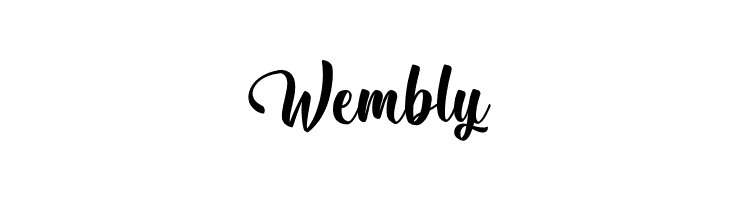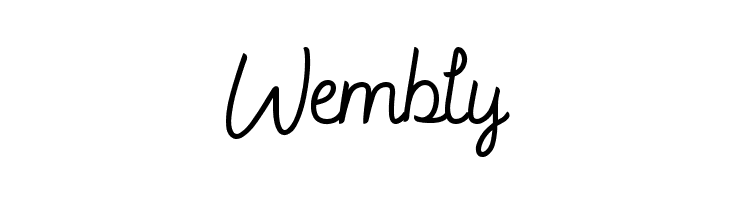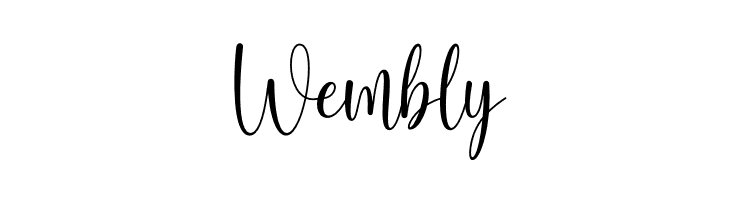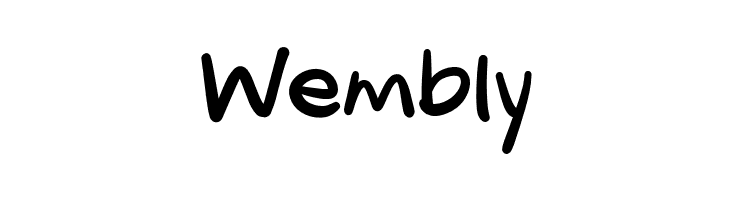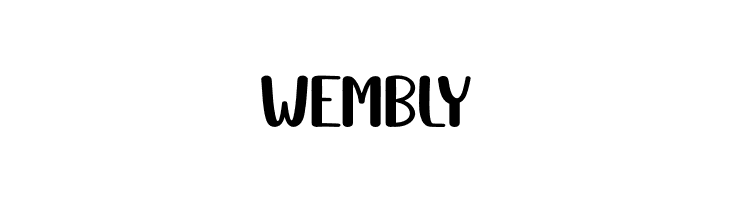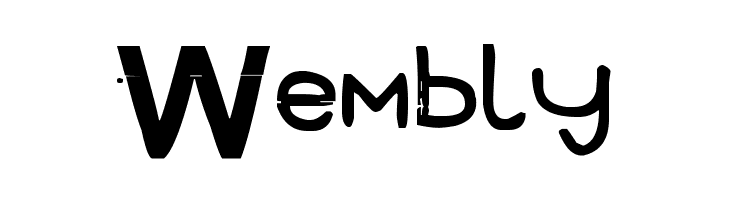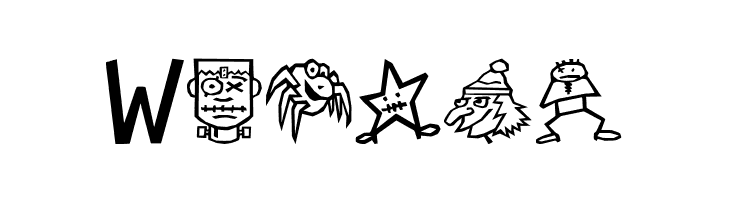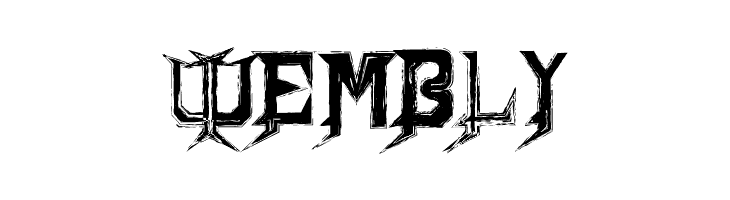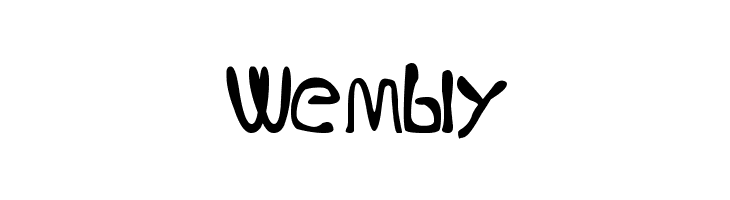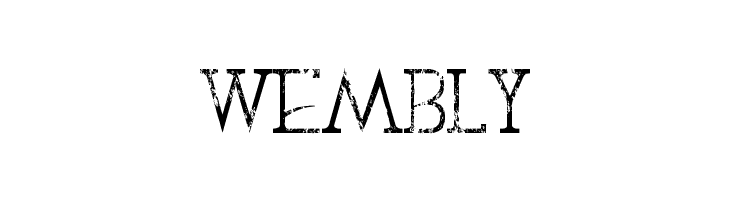
Decaying Kuntry Font
Font by www.fontdiner.com
A rugged, distressed font with a rustic, hand-crafted feel.
deccodisco Font
Font by Kirk Shelton - www.kirkshelton.com
A bold, geometric font with a retro-futuristic style.
deccodisco_casual Font
Font by Kirk Shelton - www.kirkshelton.com
A bold, geometric font with playful and modern design elements.
December Font
Ezzazebra - Adhreza Brahma - www.behance.net/adhreza
A whimsical and artistic font with elongated, narrow characters and decorative loops.
December Calligraphy Font
A charming calligraphic font with elegant, flowing cursive letterforms.
December Christmas Font
Playful, rounded sans-serif with a hand-drawn look.
December Deco Medium Font
Maelle Keita
A decorative and whimsical font with geometric and embellished characters.
December DEMO Font
A dynamic handwritten font with elegant, flowing cursive strokes.
December handmade Font
A bold, distressed font with a handmade, artistic style.
December Pastel - Personal Use Font
Flawless And Co
A modern cursive font with elegant curves and artistic flourishes.
December Reaper Regular Font
Font by Elliott Scobell
A whimsical, hand-drawn font with sharp serifs and irregular strokes.
December Script Font
Font by Wahyu Studio
A modern, elegant script font with flowing curves and graceful loops.
December Show Font
A playful, handwritten font with smooth, rounded edges and a casual style.
December Sky Font Font
A playful, handwritten script font with flowing, interconnected strokes.
DecemberCalligraphy Font
Misti's Fonts - mistifonts.com/
A charming calligraphic font with flowing, interconnected letterforms.
DecemberDear Font
Måns Grebäck
A whimsical, playful handwritten font with dynamic strokes.
decemberice Font
A whimsical, decorative font with intricate swirls and gothic elements.
DecemberLoveRegular Font
A playful, handwritten font with smooth curves and a casual style.
DecemberSkyFont Font
Misti's Fonts - mistifonts.com/